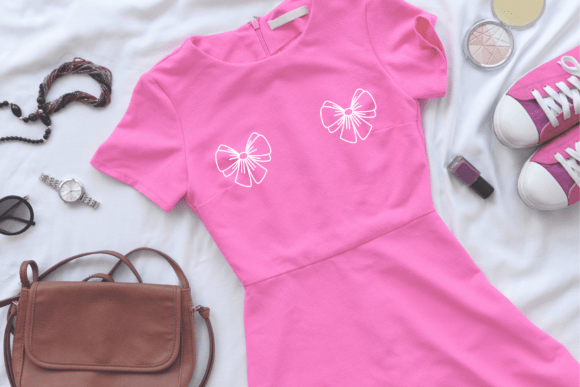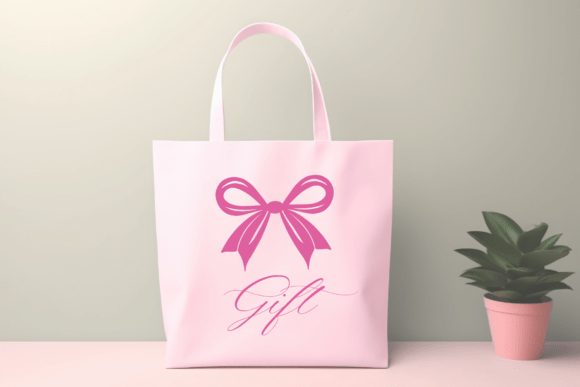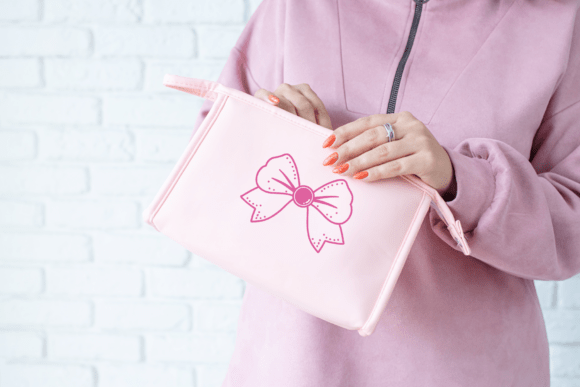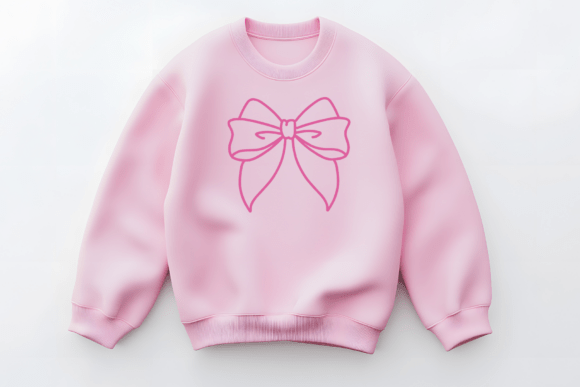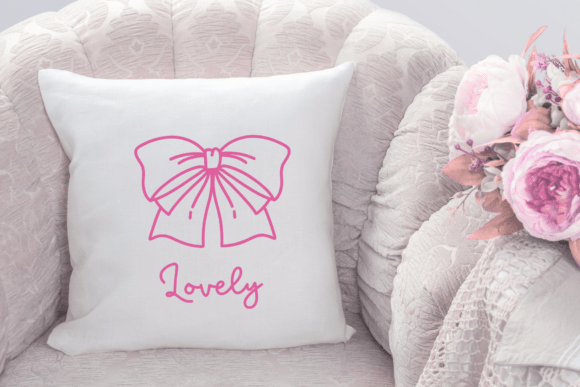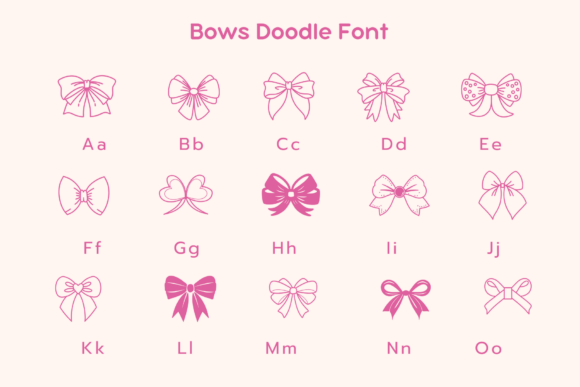
The Designer’s Delight: Bows Font
I’ll never forget the time I was working on a gift tag project for a client’s wedding shower. I had the perfect design in mind, but I just couldn’t find the right font to match. That was until I stumbled upon the Bows font. It was like a breath of fresh air – elegant, playful, and oh-so-charming. The intricate bow illustrations added a touch of whimsy to my design, and the client loved it. From that day on, I was hooked on Bows.
• ✨ Wide range of elegant, playful, and stylish bow illustrations
• ✅ Hand-drawn designs that add a personal touch to any project
• 🎉 Perfect for gift tags, invitations, planners, and fashion-themed designs
• 👍 Easy to use and customize with OpenType features and glyphs
While Bows is an amazing font, there are a few things to keep in mind. 🤔 For example, some of the bow illustrations can be a bit intricate, which may not work well at very small font sizes. ⚠️ Additionally, the font may not be suitable for body text or long paragraphs, as it’s primarily designed for decorative use.
The Story Behind Bows
Bows was designed by a talented type designer who was inspired by the art of gift wrapping and the beauty of bows. The designer wanted to create a font that would add a touch of elegance and whimsy to any design project. With Bows, you can add a personal touch to your designs and make them truly special.
Q: What type of designs is Bows best suited for?
A: Bows is perfect for gift tags, invitations, planners, and fashion-themed designs. It’s also great for any project that requires a touch of elegance and whimsy.
Q: Can I combine Bows with other fonts?
A: Absolutely! Bows pairs well with many other fonts. Feel free to experiment with different font combinations to find the perfect match for your design.